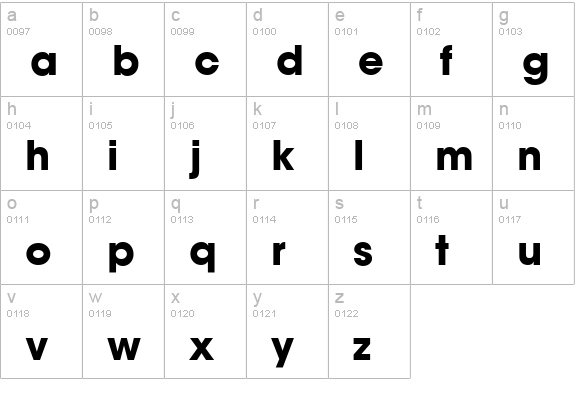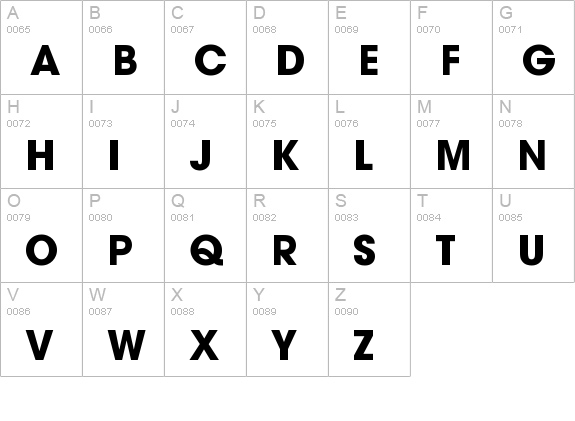
Trendex Black SSi Bold is a maximum-weight, dramatic variant in the Trendex typeface family \xE2\x80\x94 well suited to maximum-impact headlines, posters, and packaging.
Trendex Black SSi Bold font is a stunning display typeface that exudes power and sophistication. Its bold, thick strokes make a bold statement, commanding attention and leaving a lasting impression. This font is perfect for headlines, logos, and other attention-grabbing designs. With its sleek and modern design, Trendex Black SSi Bold font is versatile and can be used in various creative projects. Whether you are designing a poster, a website, or a branding project, this font will elevate your design to the next level. One of the best things about Trendex Black SSi Bold font is that it is free. Yes, you read that right! This incredible font is freely available for download at FontsMarket.com. Now you can enhance your designs without breaking the bank. Downloading Trendex Black SSi Bold font from FontsMarket.com is quick and easy. Simply visit the website, search for the font, and click on the download button. In just a few clicks, you'll have this amazing font at your fingertips, ready to enhance your creative projects. So why wait? Take advantage of this fantastic opportunity and download Trendex Black SSi Bold font today. Let your creativity soar with this powerful and captivating font. It's time to make a statement with your designs, and Trendex Black SSi Bold font is here to help you do just that.